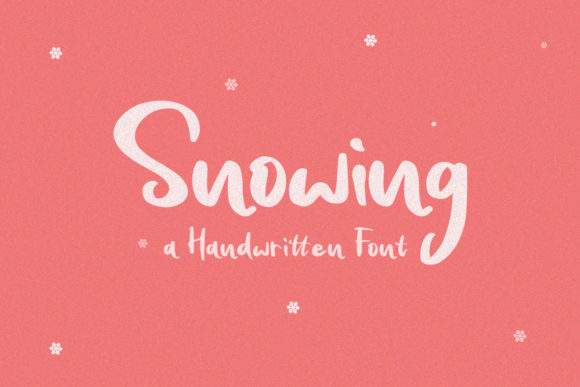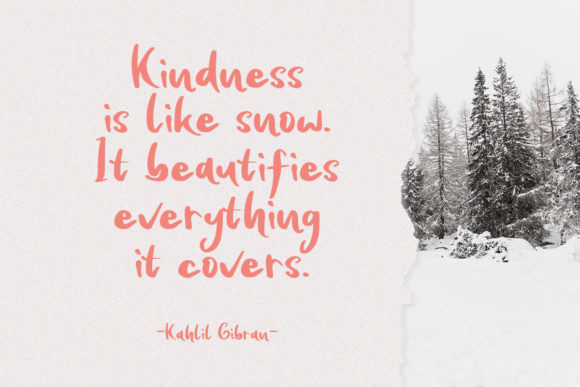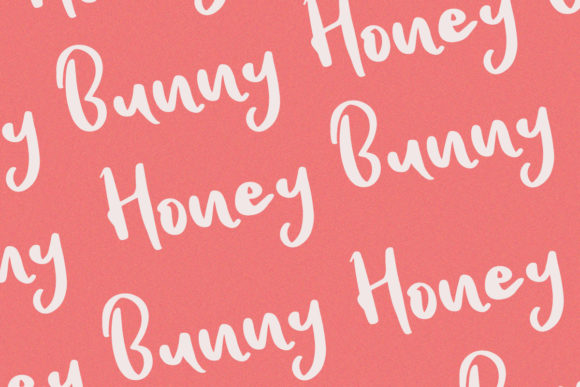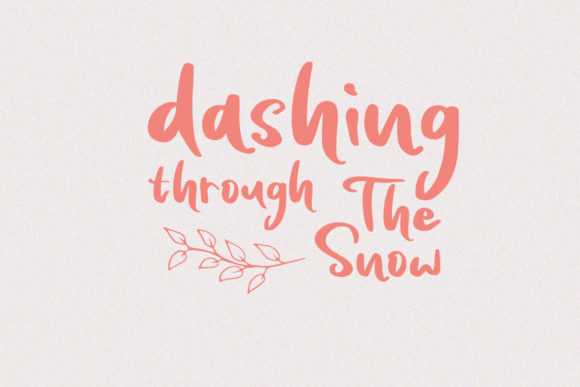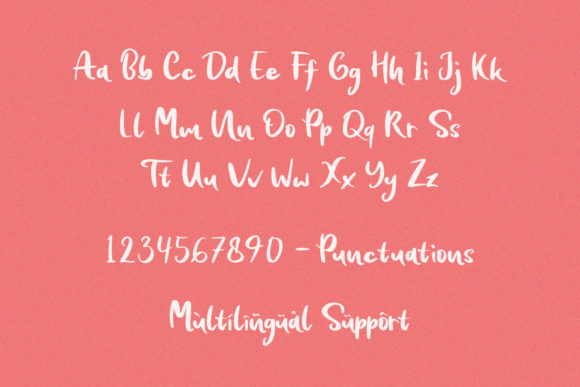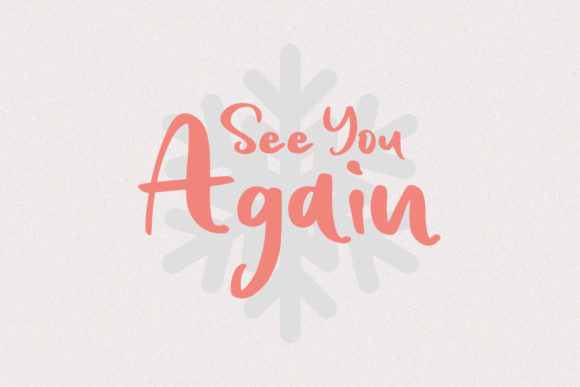
HomeScript FontsSnowing Font Script Fonts Snowing Font FacebookXPinterestWhatsApp Snowing Font Poster 2 Snowing Font Poster 3 Snowing Font Poster 4 Snowing Font Poster 5 Snowing Font Poster 6 About Snowing Font Snowing is an equally casual and chi font, perfect for adding a sweet feel to your upcoming winter designs. DOWNLOAD NOW People also explored Lorjuker Font Kiyowo Font Siren Song Font Seething Love Font Aesthetic Font Articon Font Mentor Reward Font Inklijn Monograms Oktober Font 299 0 TagsSnowing Font Previous articleBattara Script FontNext articleHey Fox Rounded Font Trio Font LEAVE A REPLY Cancel reply Comment: Please enter your comment! Name:* Please enter your name here Email:* You have entered an incorrect email address! Please enter your email address here Website: Save my name, email, and website in this browser for the next time I comment. Personal Use Free Pattern Personal Use Free Read more about this font Bally Girl Personal Use Free Read more about this font Jellia Personal Use Free Read more about this font Green Fuz Personal Use Free Read more about this font BLOG Best Fonts for T-Shirt Design – Top 2025 Picks In 2025, t-shirt design has become more than just fashion—it's a form of self-expression. Whether you're... Transform Your Website: Elevate Your Typography with 7 Best Web Font Generators Modern Sans-Serif Fonts That Brands Love in 2025 Fonts That Capture the Spirit of New York City